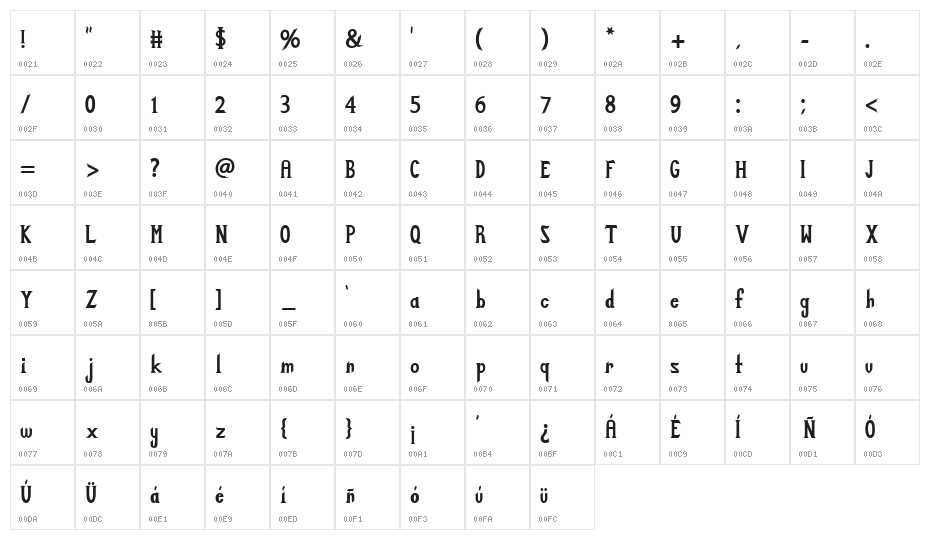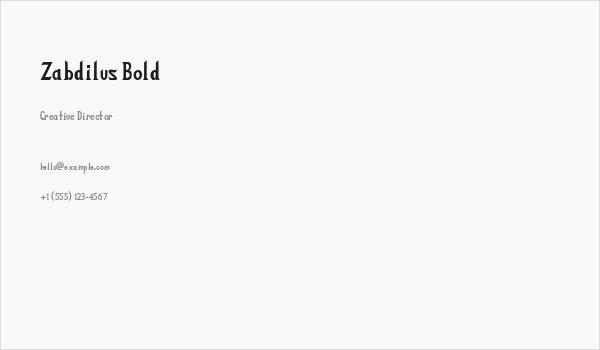
Zabdilus Bold Font
Zabdilus Bold Description
This font features a bold and distinctive style with sharp, angular serifs that give it a strong and commanding presence. The uppercase letters are tall and narrow, while the lowercase letters maintain a consistent height, providing a cohesive look. The numbers are well-proportioned, and the special characters are designed to complement the overall aesthetic. The font's unique character shapes and bold weight make it ideal for attention-grabbing headlines and impactful designs.
| Proposed Projects | Ideal for posters, branding, headlines, and any design requiring a bold statement. |